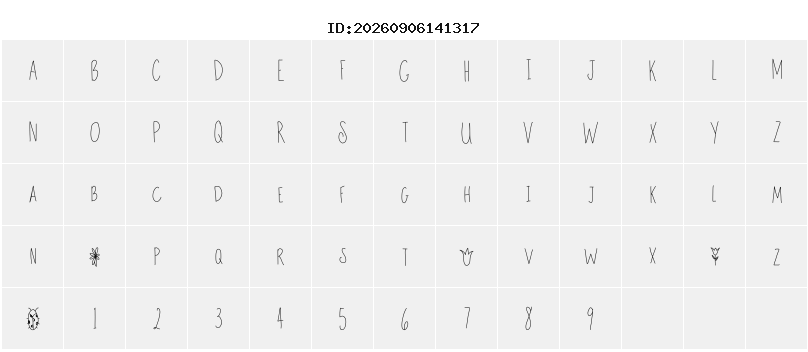
Tall Tulips Preview
• Font Name: Tall Tulips
• Full Font Name: Tall Tulips
About Tall Tulips.ttf
Tall Tulips.ttf is a modern, elegant sans-serif font designed for ultimate readability and visual harmony. Perfect for branding, headlines, web design, and print materials.